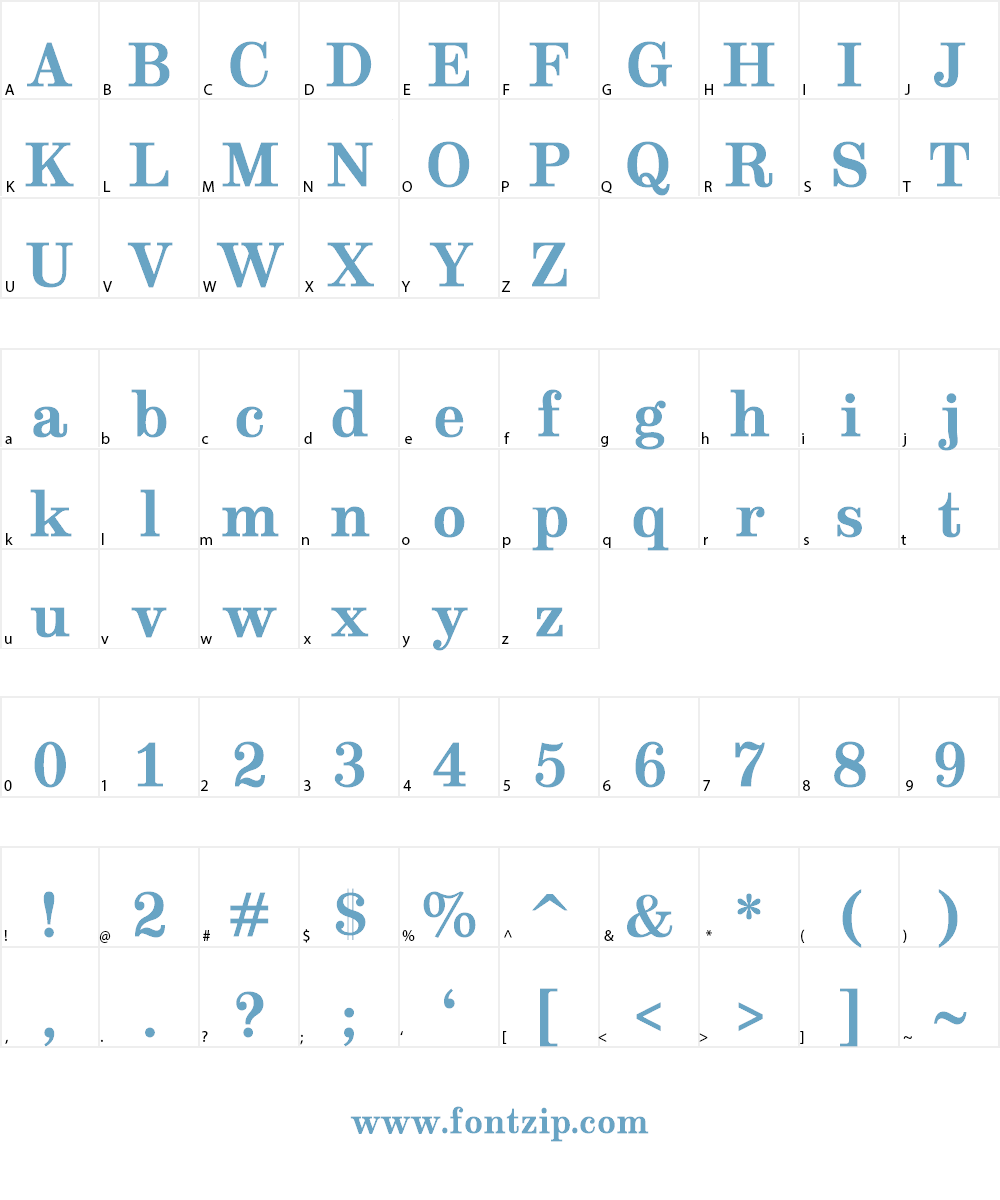
I had the need for an old fashioned typeface for a graphic design project, something remeniscent of the Victorian printing. I decided on a Clarendon style typeface. When you start looking for a free Clarendon typeface you will find many which are exceedingly good but expensive (not free). Then you will find a small number which are free but not very good. Many of them don't have an italic form or they have italics which are just slanted versions of the upright face.
So an old fashioned typeface, Clarendon is an iconic typeface of that era, it has been used in signage and advertising many many times.
There was a typeface by a company called Stephenson Blake in Sheffield. This typeface was made around 1815 and was called Consort. It was a bracketed slab serif face with ball terminals where appropriate. I have obtained scanned documents and typeface samples from that era which depict the Consort typeface and some scanned advertisments from America from the 1950's which are in a typeface I believe to be Consort. I have attempted to re-create the look and style of the Consort typeface in a modern font.
But some of the characters in the Consort typeface were not to my liking so I have designed Munson according to my own aesthetic preferences. There is also much of Clarendon in Munson. The Clarendon typeface was first made by Robert Besley in London in 1845 and is particularly well known. Munson is an amalgamation of all these influences, a sort of hybrid between Consort and Clarendon with some of my own influence thrown in for good measure.
The italic had to be distinctive and so I chose images of the fancy italic characters in equations from various Mathematics text books. It started with the 'i', 'x' and 'y' characters but spread into the rest of the characters. The leading and trailing tails of the italics are exagerrated, as indeed are the serifs of the upright font. I cheated here, rather than make an italic lower case set from scratch I just copied someone else's (from a free open source font) and then butchered them horribly. I dislike starting with a blank canvas. This is not new or original, it is fashioned after Craw Modern italic, a typeface be Freeman Craw around 1960 and also Monotype Modern Italic. It just looked right, rather than having the italics as an oblique version of the upright, using oblique for italic is a cop out but it is what most of the free Clarendons do if they bother with italics at all. I do not posess a copy of Craw Modern but there are scanned images on the web and much of the design was a hand and eye copy of scanned images.
The construction of Munson has been achieved at a very fast pace due to starting out with a slab serif font which I designed three and a half years ago using Font Forge. That font was not very good but provided a starting point for further work. Also many of the incidental characters were copied from 'Kelvinch' (one of my previous fonts) and modified if necessary.
Munson comes in Regular, Italic, Bold and Bold Italic faces.